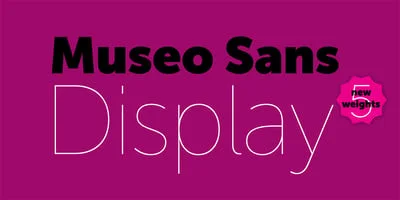
Museo Sans Display Font
Museo Sans Display Font is perfect for museum exhibitions, cultural institution branding, art gallery signage, educational materials, corporate presentations, editorial headlines, architectural firms, and prestigious academic publications. This refined typeface excels in projects requiring intellectual sophistication and cultural authority where knowledge meets aesthetic excellence.
What makes Museo Sans Display Font exciting is its perfect fusion of scholarly tradition with contemporary design principles, creating an authoritative yet approachable personality. The font features clean, well-proportioned letterforms with subtle humanist touches and excellent optical balance that convey credibility, intelligence, and cultural refinement. Its versatile character makes it ideal for institutions seeking to communicate expertise while remaining accessible to diverse audiences.
Museo Sans Display Font family includes comprehensive weight variations and extensive language support that provide exceptional flexibility for international cultural projects. The family typically offers thin, light, regular, medium, bold, and black weights, along with corresponding italic styles and OpenType features that enhance typographic sophistication and global usability.
Whether you're developing museum identity systems, designing academic conference materials, or creating cultural exhibition graphics, Museo Sans Display Font delivers unparalleled elegance across all educational applications. This font's scholarly appeal and institutional credibility make it perfect for organizations dedicated to knowledge, culture, and artistic expression.
The meticulously crafted letterforms and optimal spacing of Museo Sans Display Font ensure exceptional readability while projecting intellectual authority at any scale. Its timeless design and cultural sensitivity create lasting impressions that resonate with educated audiences worldwide. Download Museo Sans Display Font today and elevate your educational and cultural projects with this distinguished typeface that bridges tradition and innovation.